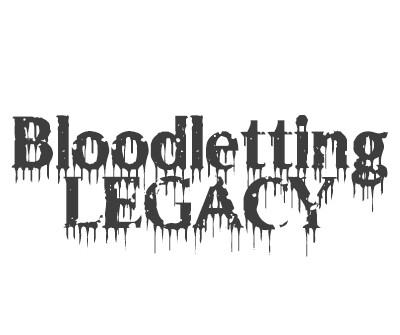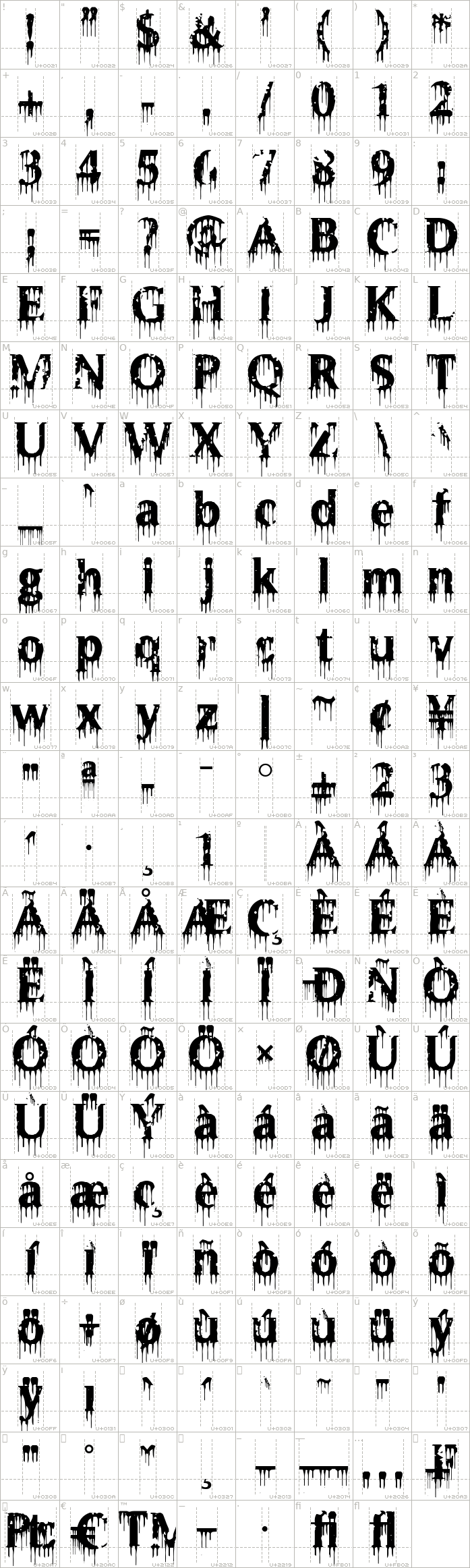
Bloodletting Legacy Font - Dive into Dark Elegance
Elevate your designs with the haunting allure of the Bloodletting Legacy font. This unique typeface seamlessly melds the timeless elegance of serif design with the dramatic intensity of erosion and sharp blood drips. It's not just a font; it's an experience, invoking both unease and artistry in every stroke.
Crafted with meticulous attention to detail, Bloodletting Legacy is comprehensive and versatile. Whether you're working on a chilling book cover, an evocative movie poster, or a thematic event invitation, this font ensures your message resonates with impact.
Features:
- Full Character Set: Dive into a rich set that includes both uppercase and lowercase letters, ensuring your texts are complete and varied.
- Numbers & Punctuation: From crafting precise headlines to detailing haunting narratives, the inclusion of numbers and an array of punctuation marks cater to every need.
- Symbols & Accents: Broaden your design horizons with an assortment of symbols, the Euro sign, and Latin-1 supplement characters. Whether you're looking to cater to international audiences or infuse your designs with nuanced symbolism, Bloodletting Legacy has got you covered.
- Multilingual Support: With the addition of Latin-1 supplement characters and accents, this font is equipped to bring its dark charm to diverse languages and global projects.
Step into a world of dark sophistication. Let Bloodletting Legacy transform your creative visions into tangible masterpieces.